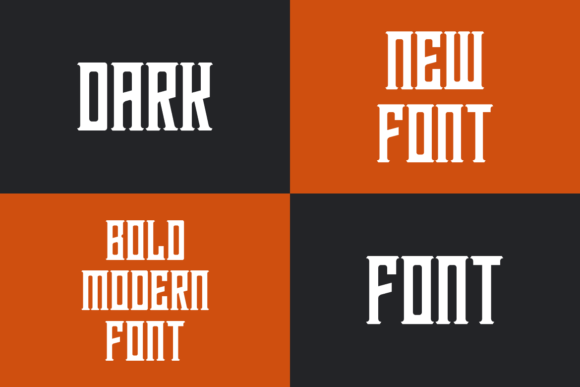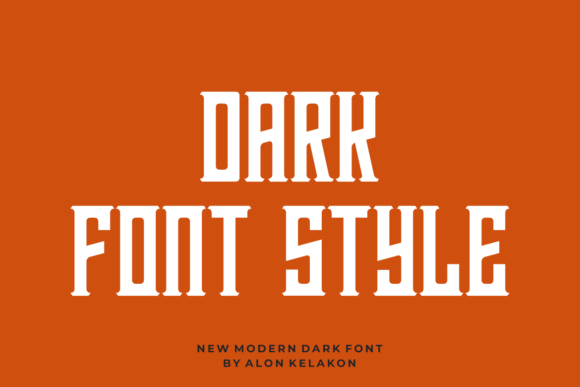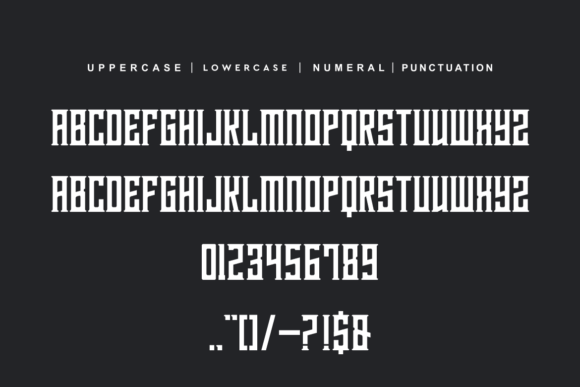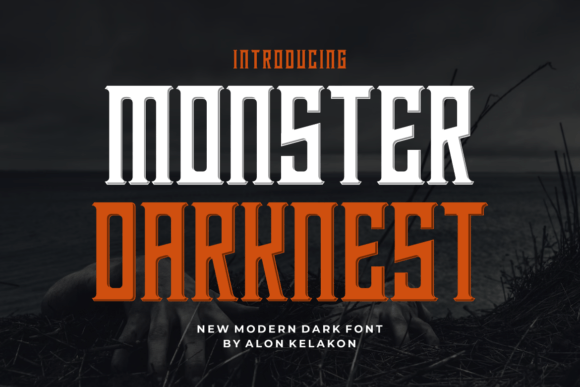
Introduction to Monster Darknest Font
Monster Darknest Font is unique.
Ready to use for your design like labeling, clothing, movie scenes, poster, movie title, gigs, album covers, logos, and much more .
Key Features of Monster Darknest Font
Why Choose Monster Darknest Font?
Monster Darknest Font offers exceptional quality and versatility, making it a valuable addition to your design toolkit. Whether you’re creating for personal projects or commercial use, Monster Darknest Font delivers professional results.